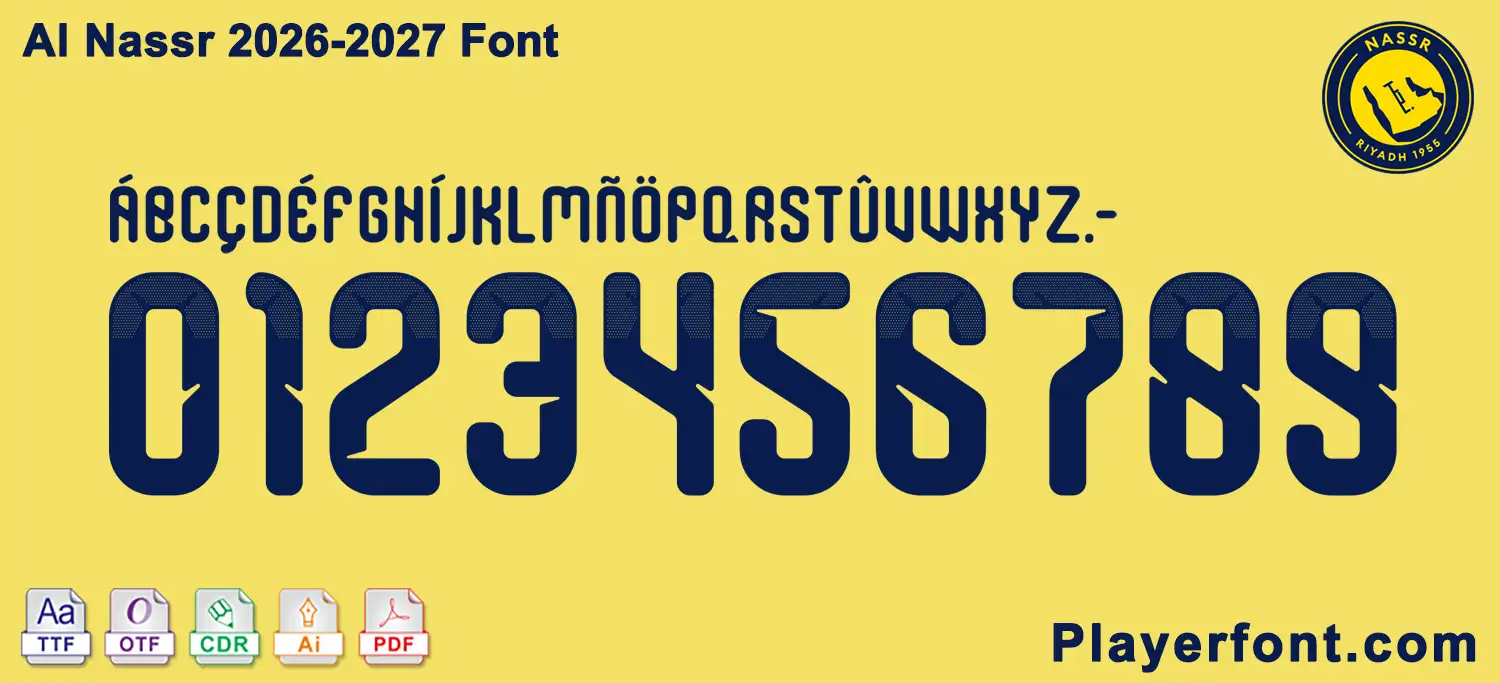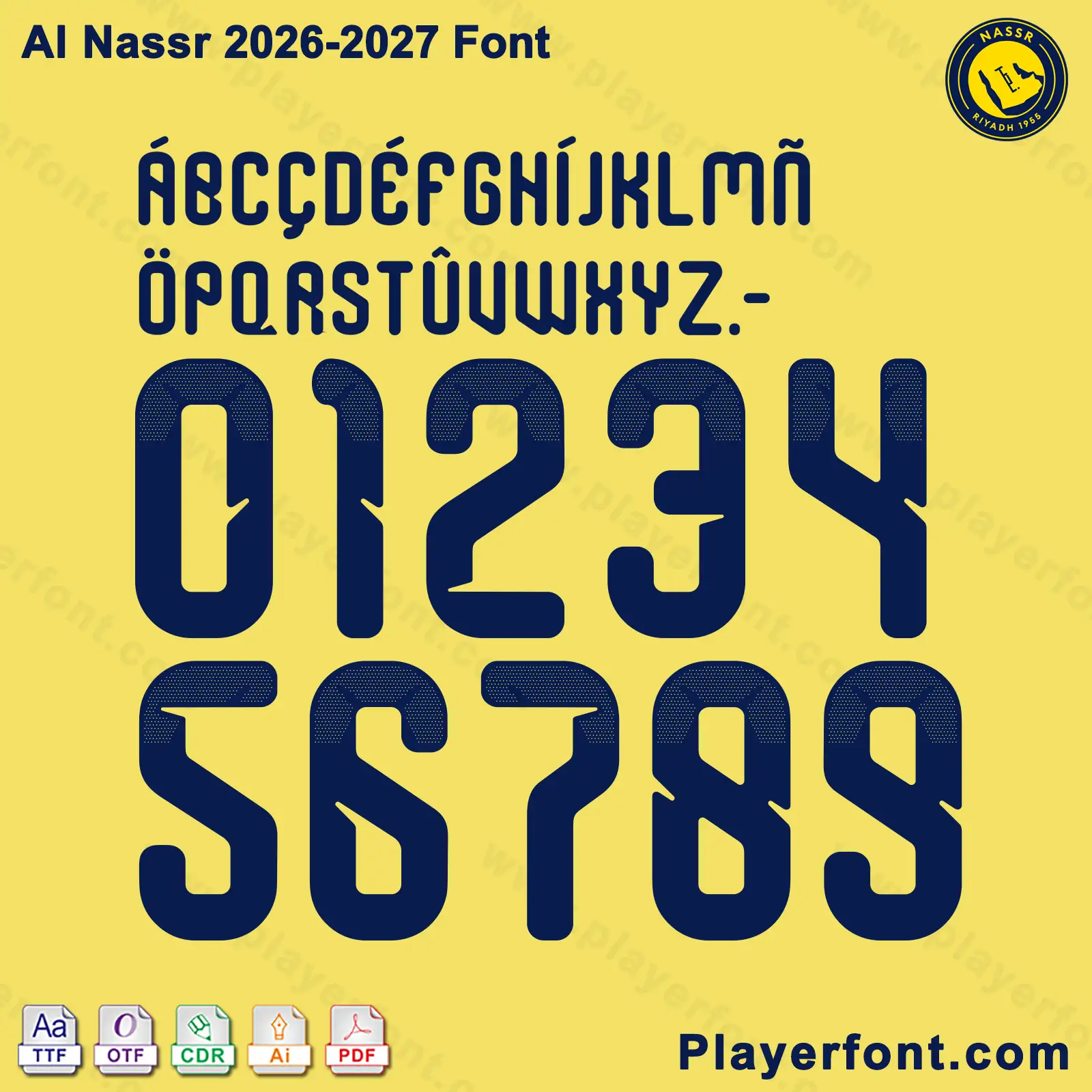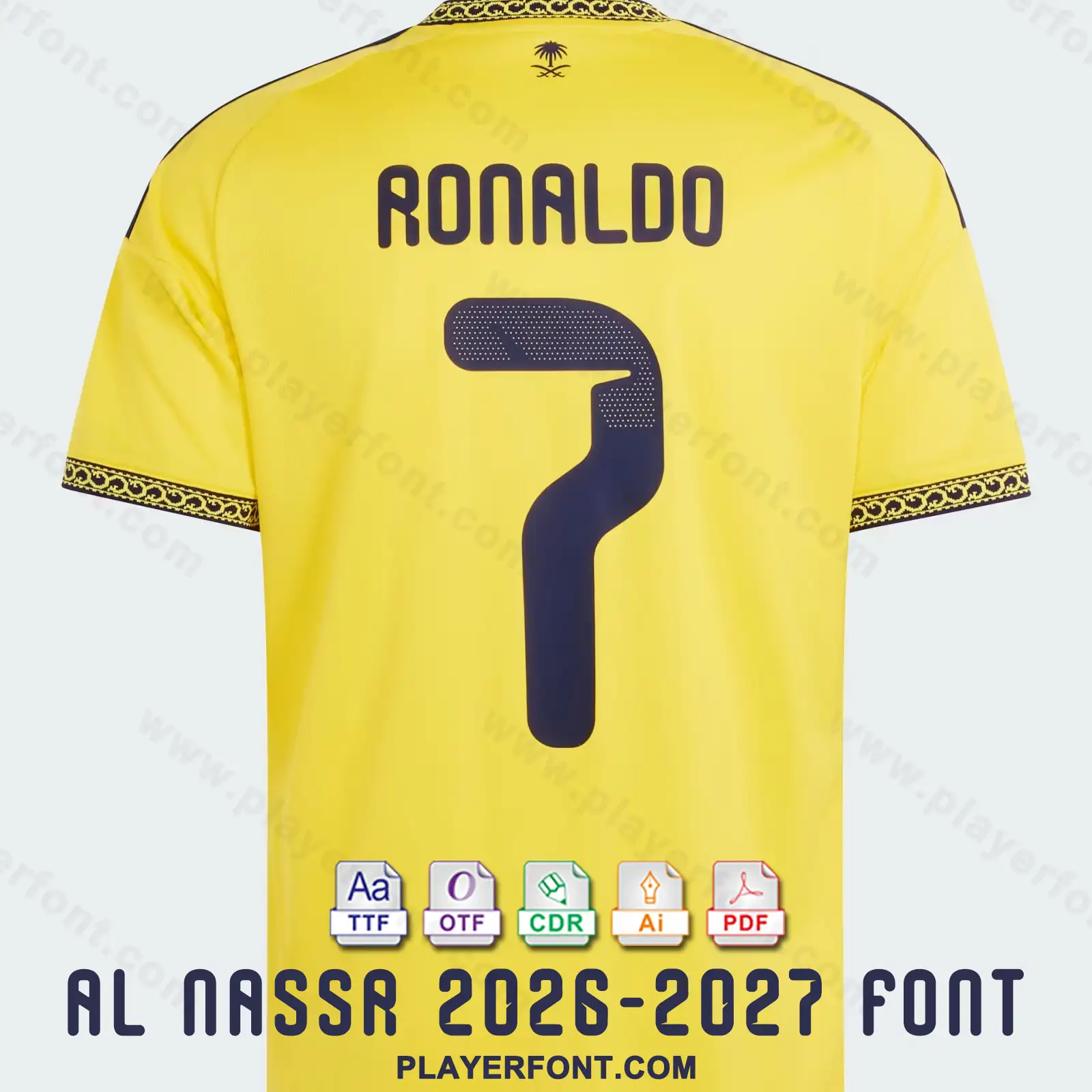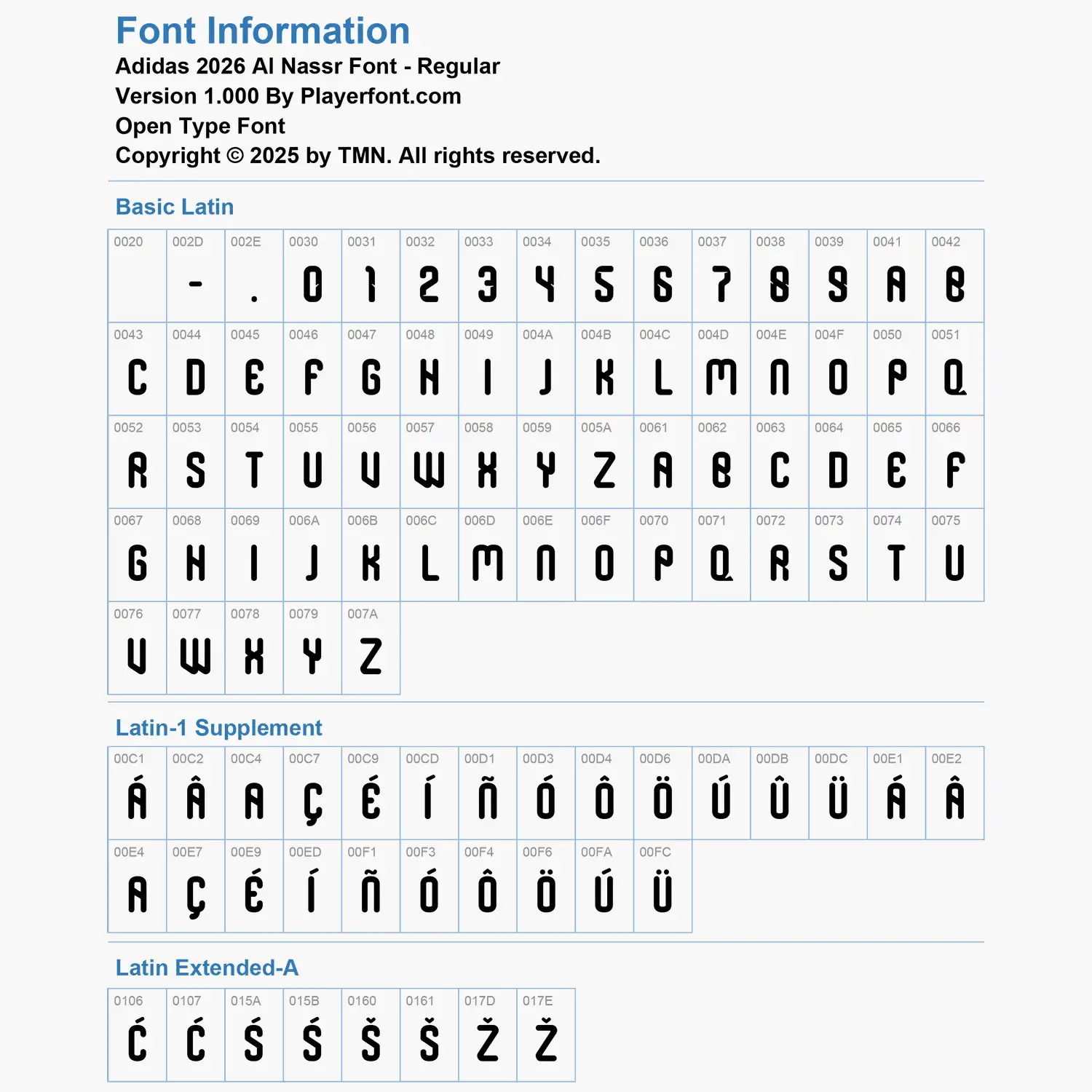
Elevate your sports jersey mockups, football custom graphics, and vector apparel printing projects with the high-quality Al Nassr 2026-2027 Font Download. Masterfully engineered by Playerfont.com, this high-performance typography set replicates the official-style numbers and distinct lettering featured on the pitch for Al Nassr’s campaign.
Key Typography Features & Character List:
- Modern Curved Athletic Lettering: Contains a distinct uppercase character set with stylized rounded arches, unique ‘E’, ‘M’, and ‘W’ letterforms, numbers (0-9), hyphens, and periods.
- Advanced International Accent Support: Includes an expansive set of diacritics spanning Basic Latin, Latin-1 Supplement, and Latin Extended-A (such as Á, Â, Ã, Ç, Ć, É, Ê, Í, Ñ, Ó, Ô, Ö, Ś, Š, Ú, Û, Ü, and Ž) ensuring flawless rendering for global football superstars (such as Cristiano Ronaldo) and international naming requirements.
- Authentic Visual Details: The jersey numbers feature dark navy rounded block structures with a subtle halftone dot gradient across the upper tops and sharp angular inner notches on digits.
| Design Feature | Dark Navy Solid Body with Top Halftone Dot Gradient & Angular Cutouts |